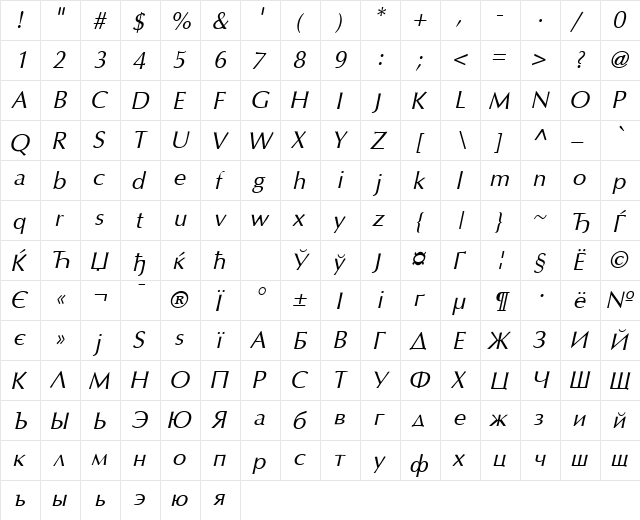
AGOpusHighResolution Oblique
Design Context for AGOpusHighResolution Typeface
AGOpusHighResolution offers clean, dependable letterforms without strong stylistic allegiance, making it a practical choice for designers who need flexibility. Its italic angle brings a sense of urgency and motion to the letterforms.
Pro Tip: Use AGOpusHighResolution for emphasis, pull quotes, and subheadings where its slanted energy can add rhythm to the layout.